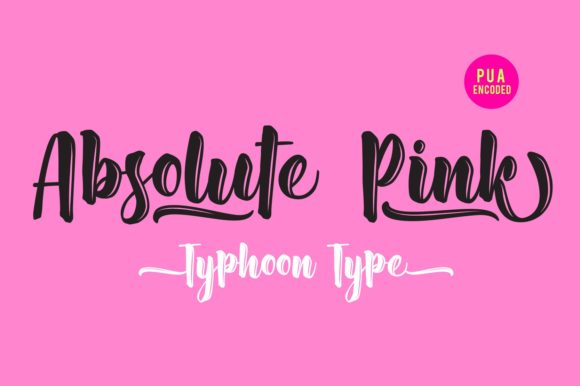
Absolute Pink Font
About Absolute Pink Font
Absolute Pink is a lovely and authentic handwritten font with a playful and delicate charm. Fall in love with its romantic elements and use it for any design project that needs a touch of elegance.